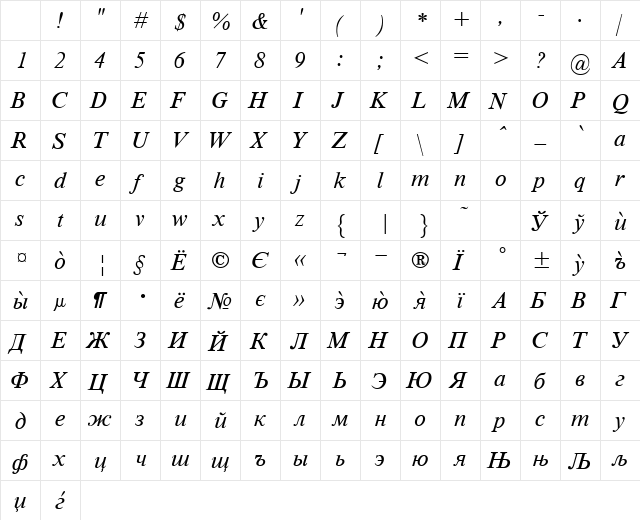
Complete TmsCyr Italic glyph index. Displaying only characters natively supported by TmsCyr Italic font.
TmsCyr is a composed and adaptable typeface that performs quietly and consistently across a wide range of design contexts. The slanted form adds forward momentum and visual energy.